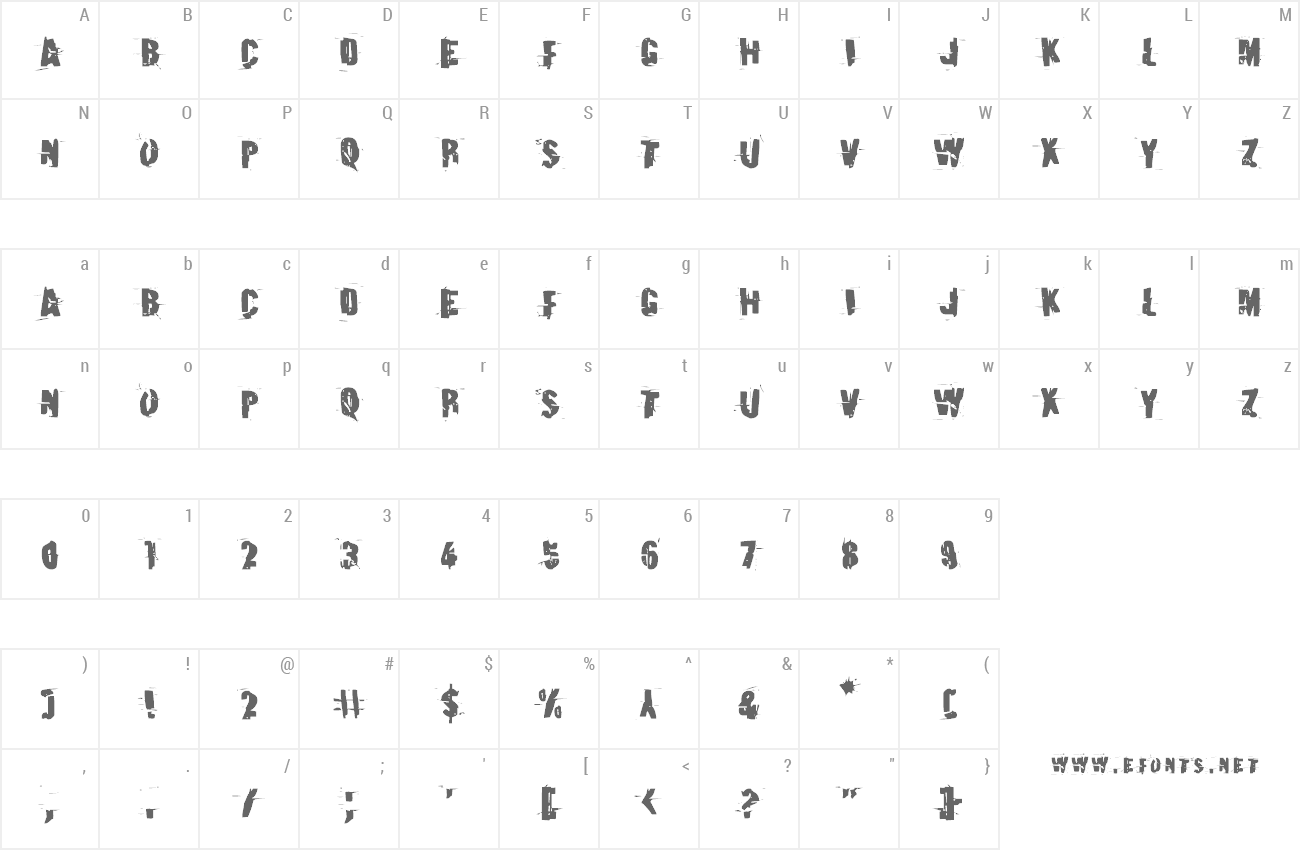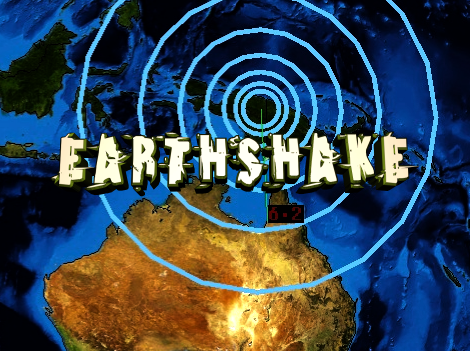
Preview and download Earthshake Font. Created by Iconian Fonts in Fancy Destroy styles with Donationware license.
| A super-distressed font being torn apart by shockwaves and tremors. Full Latin character set. For information regarding commercial usage, please visit www.iconian.com/commercial.html |